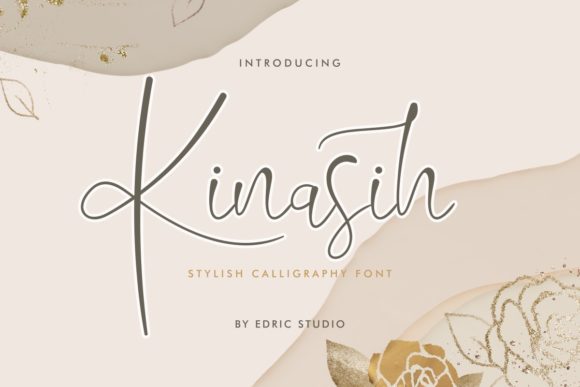
Unleash the Allure of Kinasih: The Epitome of Sophistication for Your Creative Endeavors
In a world saturated with digital monotony, Kinasih emerges as a breath of fresh air, a font that captivates with its natural script, exuding elegance and class. This meticulously crafted font is not merely a collection of letters; it's an artistic expression that elevates your designs, transforming them into masterpieces.
Kinasih is the perfect companion for those seeking a beautiful and refreshing touch to their logos and branding. Its graceful strokes and flowing curves add a touch of sophistication that commands attention, leaving a lasting impression on your audience. Whether creating invitations, labels, packaging, wedding designs, or other special event materials, Kinasih effortlessly elevates the ordinary into the extraordinary.
With Kinasih, you'll discover a font that's not just visually stunning but also incredibly versatile. Its wide range of applications makes it a must-have for any designer's toolkit. Unleash your creativity and explore the endless possibilities that Kinasih offers, bringing your designs to life with a touch of timeless elegance.
But what truly sets Kinasih apart is its PUA encoding, a feature that grants you effortless access to a treasure trove of glyphs and swashes. These intricate embellishments add depth and personality to your designs, allowing you to create truly captivating compositions that leave a lasting impression.
Experience the transformative power of Kinasih today and elevate your creative projects to new heights of sophistication. Immerse yourself in the beauty of its natural script, and let your designs shine with a touch of timeless elegance and grace. Embrace the allure of Kinasih, and unlock the gateway to a world of creative possibilities.